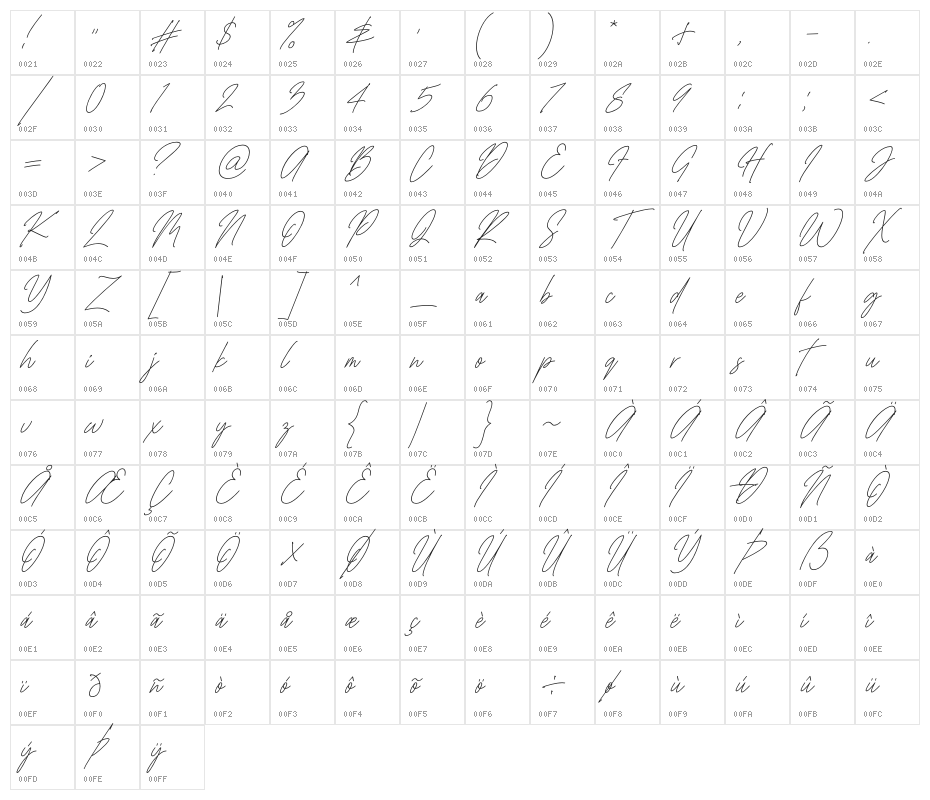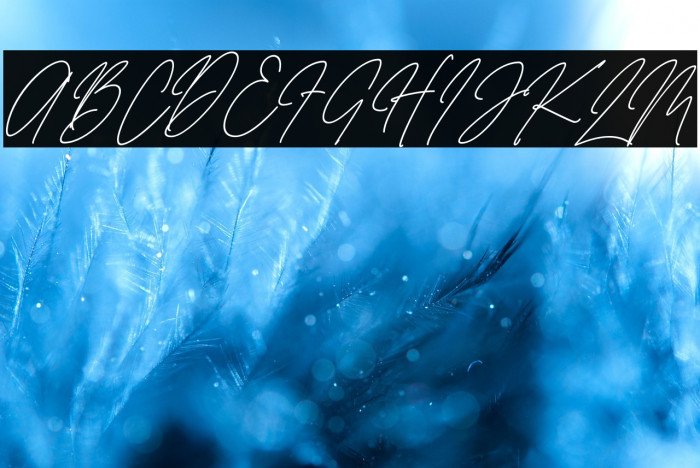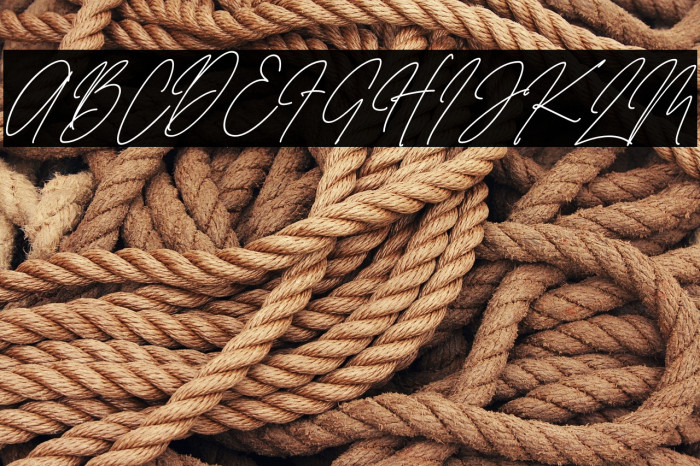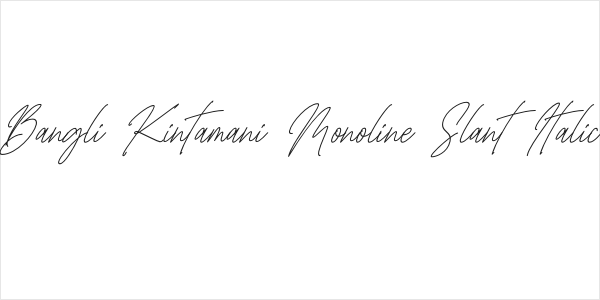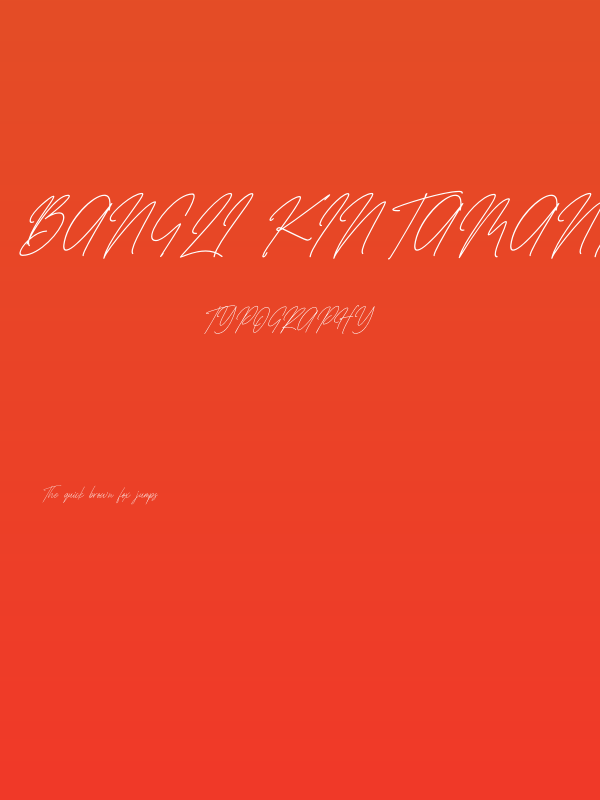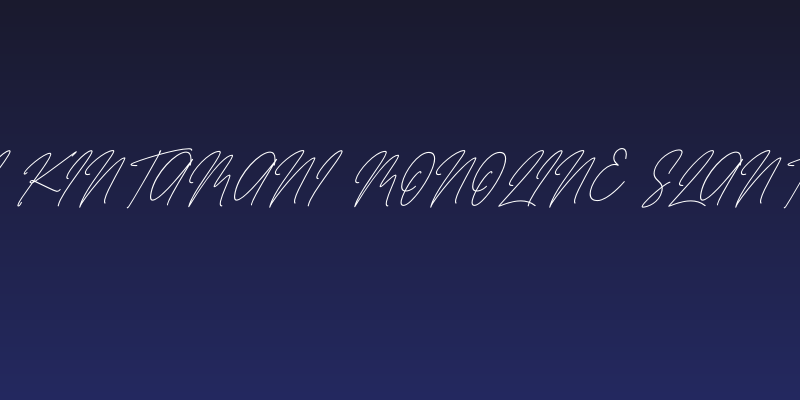
Bangli Kintamani Monoline Slant Italic Font
Bangli Kintamani Monoline Slant Italic Description
This font features a monoline script style with a distinct slant, giving it an elegant and fluid appearance. The uppercase and lowercase letters are crafted with a consistent stroke width, creating a harmonious and balanced look. The characters are connected in a cursive manner, enhancing the flow and continuity of the text. The font's italic nature adds a dynamic and sophisticated touch, making it suitable for creative and expressive designs. The numerals and special characters maintain the same monoline style, ensuring uniformity across all elements. The overall design exudes a sense of modernity while retaining a classic script charm.
| Proposed Projects | Ideal for wedding invitations, branding projects, elegant logos, and stylish stationery. |